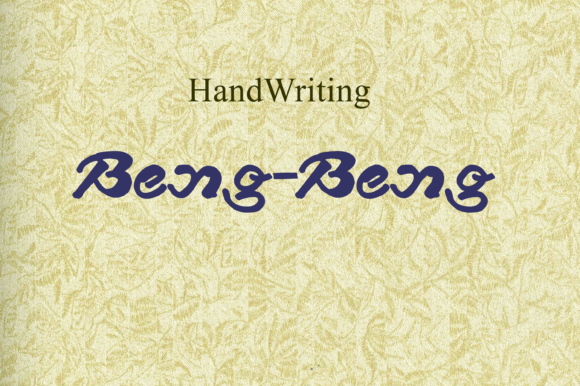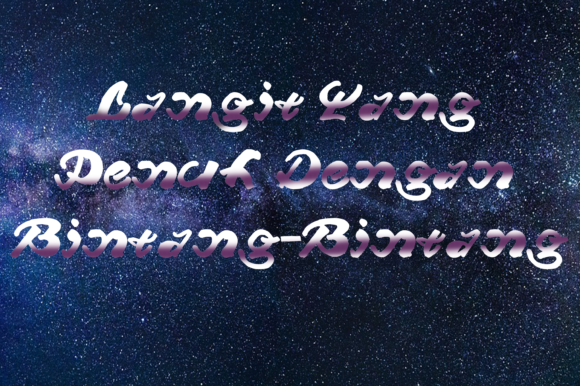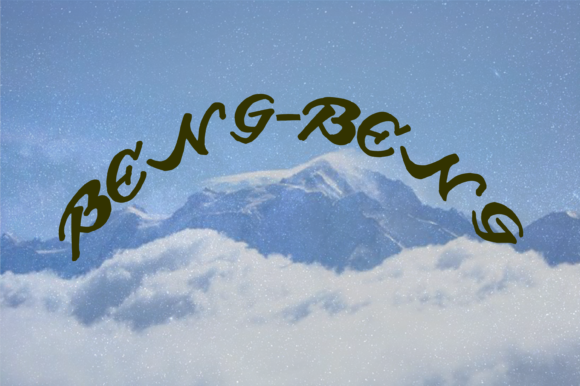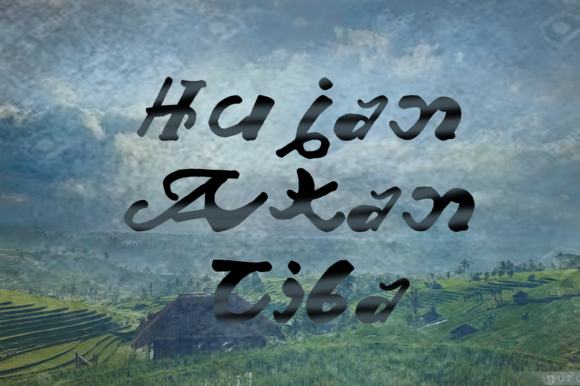
Beng Beng Font
About Beng Beng Font
The Beng-Beng is a fun and bold handwriting font. It has a fresh & modern style, which makes it suitable for logos, branding, greeting cards, posters
and much more!